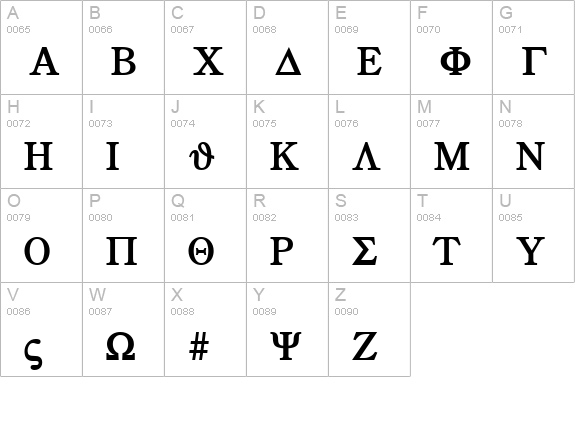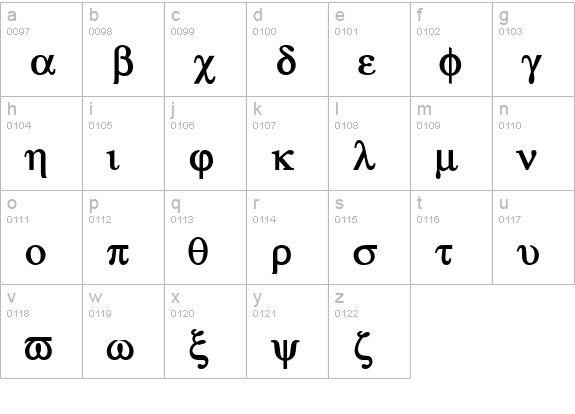
Greek Bold is a strong, high-contrast variant in the Greek typeface family \xE2\x80\x94 well suited to headlines, attention-grabbing titles, and strong calls-to-action.
The Greek Bold font is a stunning and elegant typeface that exudes sophistication and style. With its bold and eye-catching design, this font is perfect for making a statement in your projects. Whether you're designing a poster, logo, or any other creative work, Greek Bold will add a touch of class and flair. The best part is, Greek Bold font is completely free! You can download this amazing font at FontsMarket.com and start using it in your designs right away. Don't miss out on this awesome opportunity to enhance your projects with the beauty and elegance of Greek Bold font.